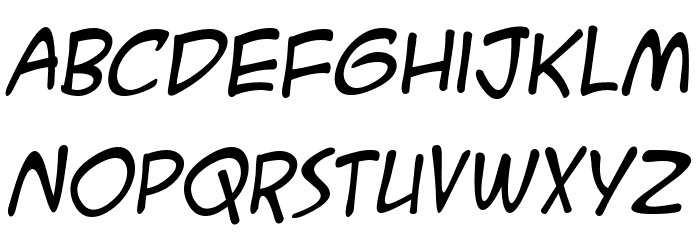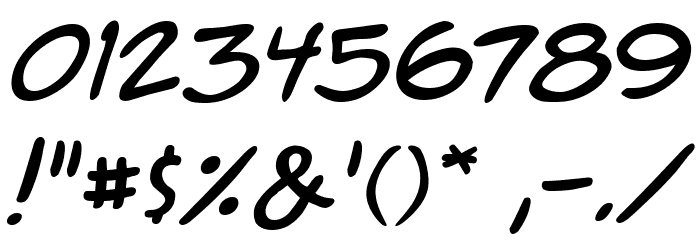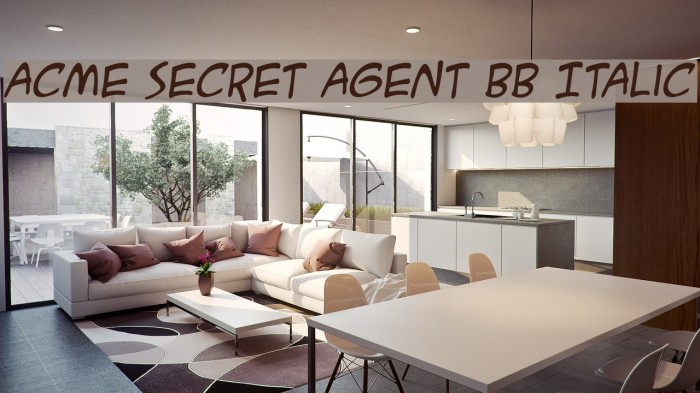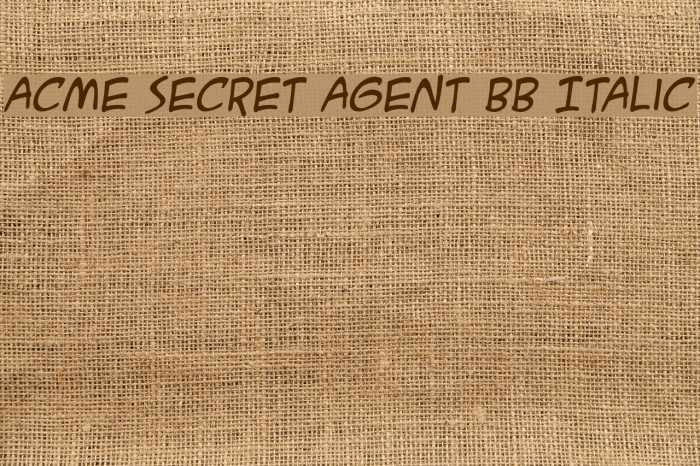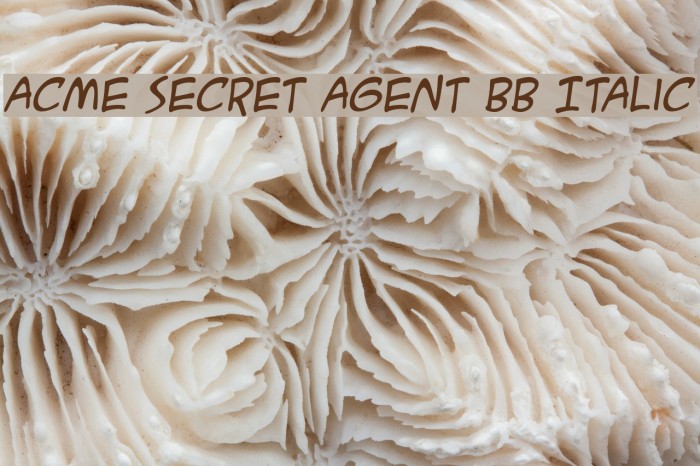
ACME Secret Agent BB Italic Font
This font features a playful and dynamic style with a handwritten appearance. The characters are slightly slanted, giving an italicized look that adds a sense of motion and energy. The strokes are smooth and rounded, providing a friendly and approachable feel. The uppercase and lowercase letters maintain a consistent style, with a moderate contrast in stroke thickness that enhances readability. The numerals and special characters are designed to match the overall aesthetic, ensuring a cohesive look across all text elements.
A playful, italicized handwritten font with smooth, rounded strokes.
- Proposed Projects: Ideal for comic books, children's books, playful branding, and casual invitations.
- Overall Style: Playful
- Use Case: Headlines, Logos, Informal Text